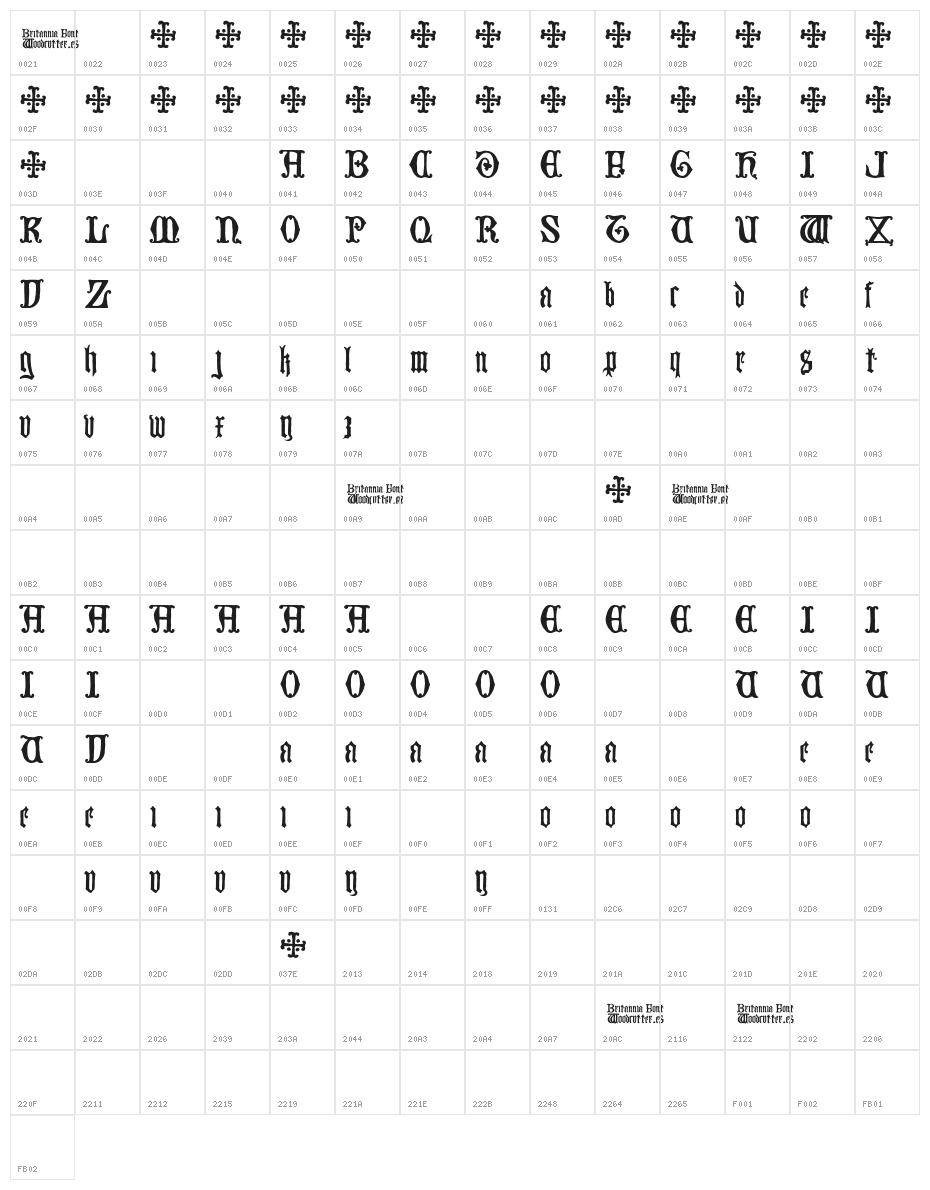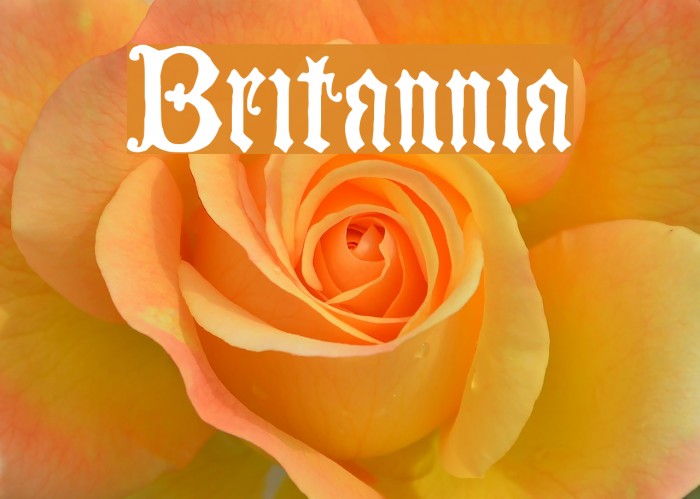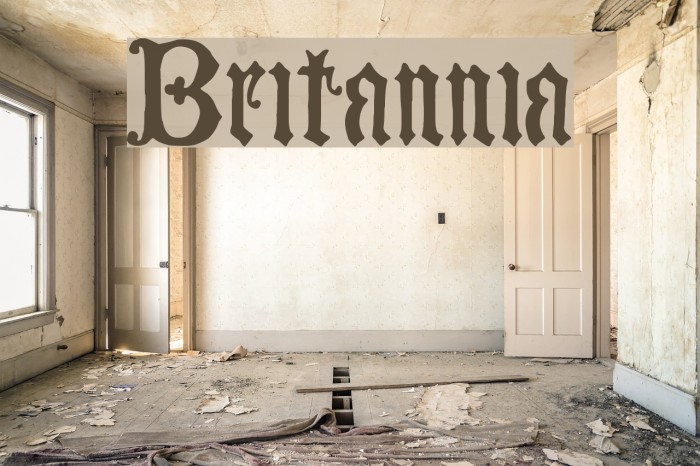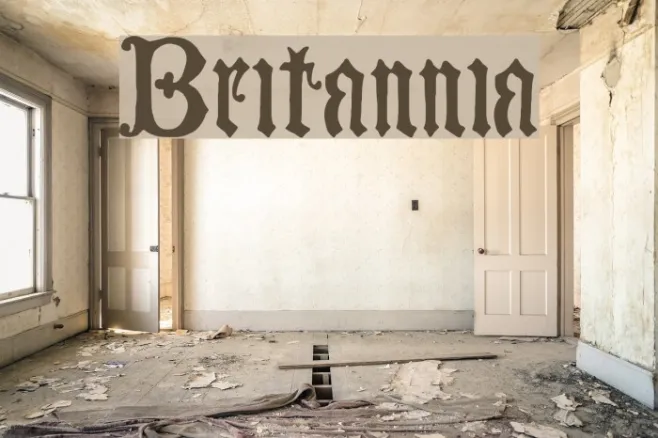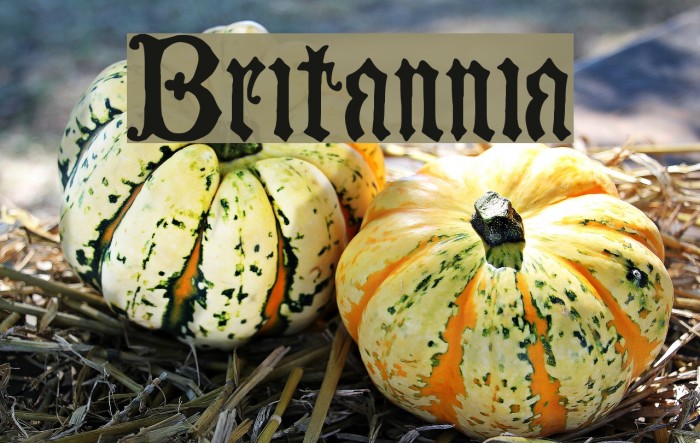
Britannia Font
Britannia Description
This font exhibits a bold and dramatic style, characterized by its intricate and ornate design. The letters are heavily stylized with sharp, angular lines and decorative flourishes that evoke a sense of historical elegance. The uppercase letters are particularly elaborate, with unique embellishments that give each character a distinctive appearance. The lowercase letters maintain a consistent style, offering a cohesive look across the typeface. This font is reminiscent of traditional blackletter or Gothic scripts, often associated with medieval manuscripts and historical documents. Its bold presence and high contrast in stroke thickness make it stand out, while the spacing between characters is relatively tight, enhancing its compact and impactful appearance.
| Use Case | Logos, Headlines, Decorative purposes |
| Proposed Projects | Ideal for projects requiring a historical or medieval aesthetic, such as book covers, posters, or themed event invitations. |